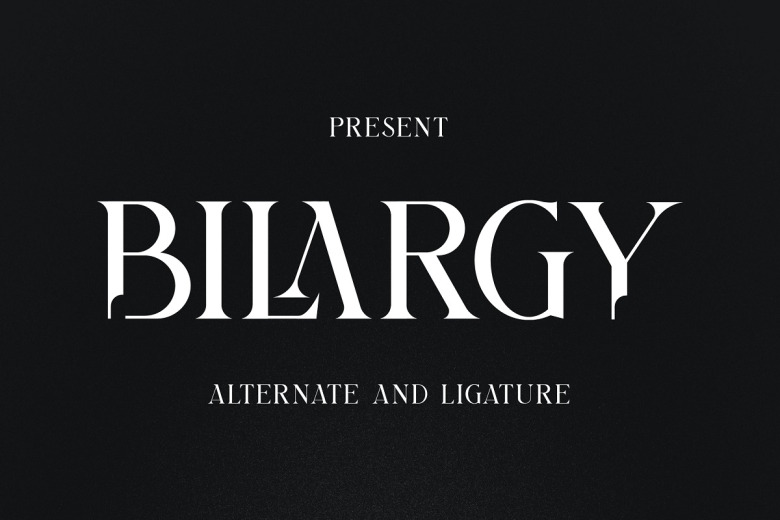
Bilargy Classic Font
Introducing Bilargy Classic Serif Font figure out more about this simple yet elegant serif typeface! Displaying the beauty of the classics in a modern way. It has a unique style with an elegant and classic look. Bilargy Serif is truly perfect for logos, book, and movie title designs as well as for fashion brands, magazines, clothing, fonts, quotes, and more!
Bilargy Classic Serif Font